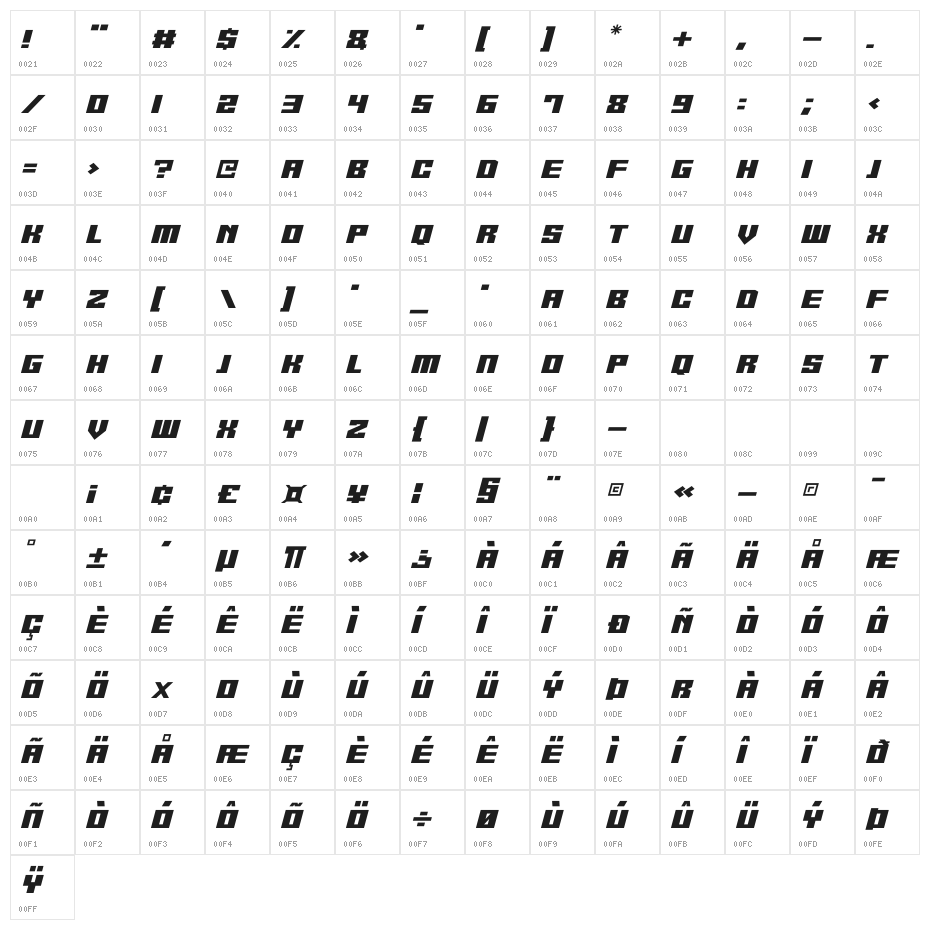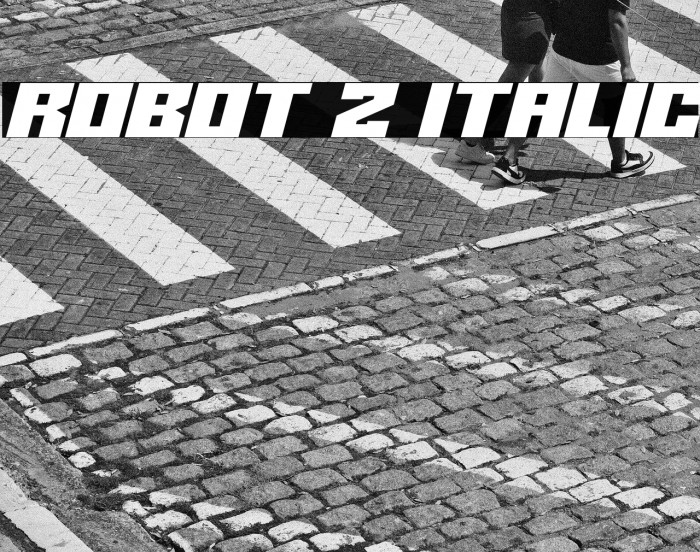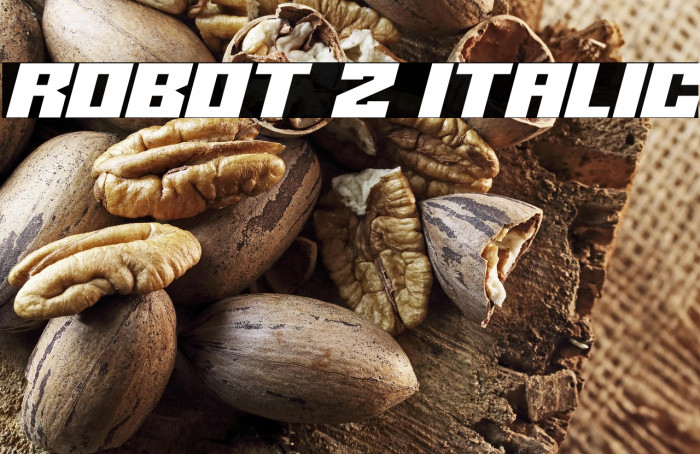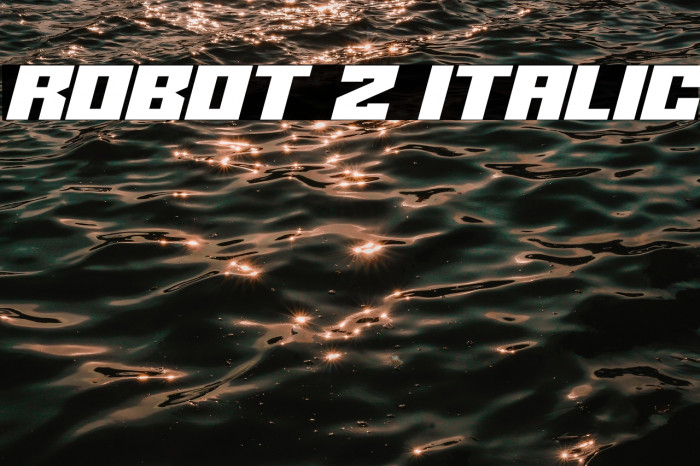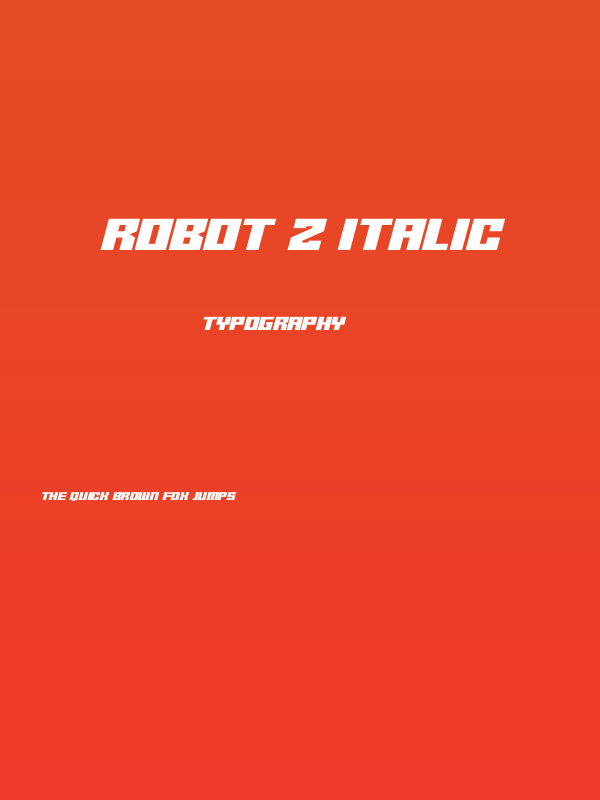
Robot Z Italic Font
Robot Z Italic Description
This font features a bold, italicized style with a futuristic and dynamic appearance. The characters are sharply angled, giving a sense of motion and speed. The uppercase letters are prominent and commanding, while the lowercase letters maintain the same boldness and angularity. Numbers are equally bold, ensuring they stand out in any context. Special characters are designed to match the overall aesthetic, making them suitable for a variety of uses. The font's strong geometric shapes and consistent stroke weight contribute to its modern and assertive look.
| Proposed Projects | Ideal for sci-fi themed projects, video game titles, sports branding, and dynamic posters. |